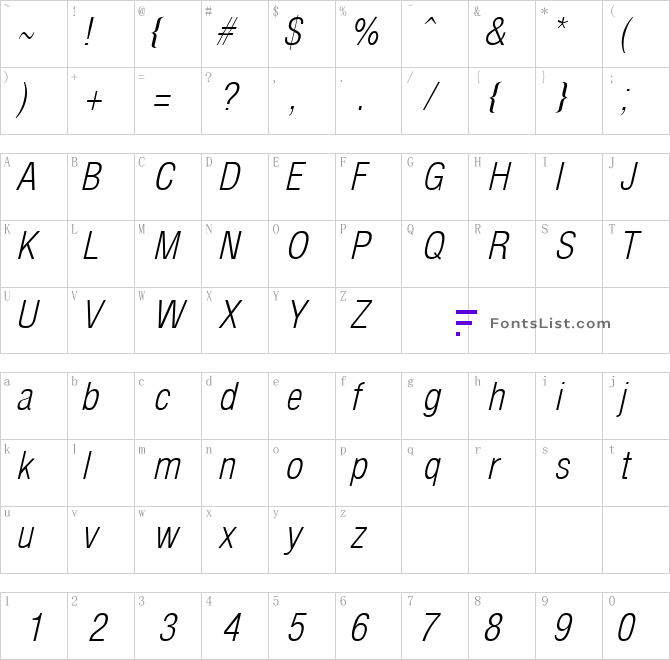
- Font Name:Arena Condensed Light
- Subfamily:WSI: ArenaCondensedLight Italic
- Full Name:Arena Condensed Light Italic
- PostScript:ArenaCondensedLight Italic
Arena-Condensed-Light-Italic.ttf is a very beautiful artistic font, Arena-Condensed-Light-Italic.ttf is widely used in the design and printing of various books and pictures,Arena-Condensed-Light-Italic.ttf has a strong visual impact,Arena-Condensed-Light-Italic.ttf is a commonly used font in newspapers, magazines and books, and is used in posters, e-commerce Poster design, store design, logo design, font design and other fields.Arena-Condensed-Light-Italic.